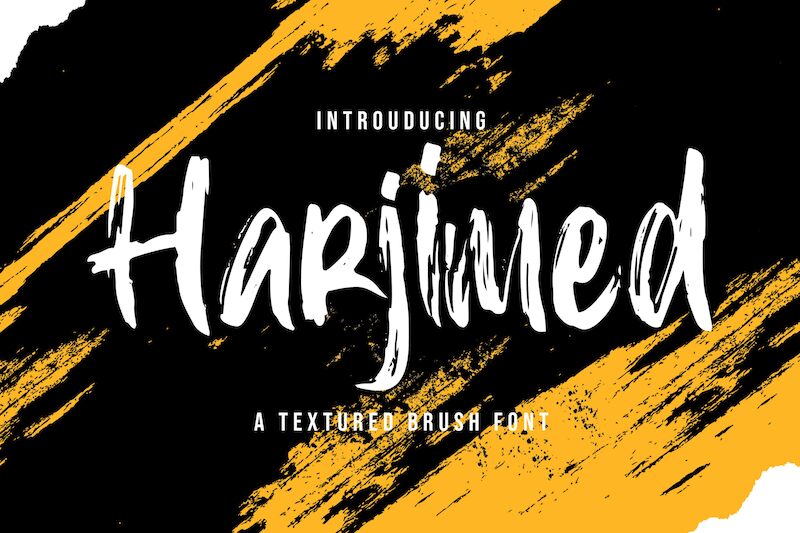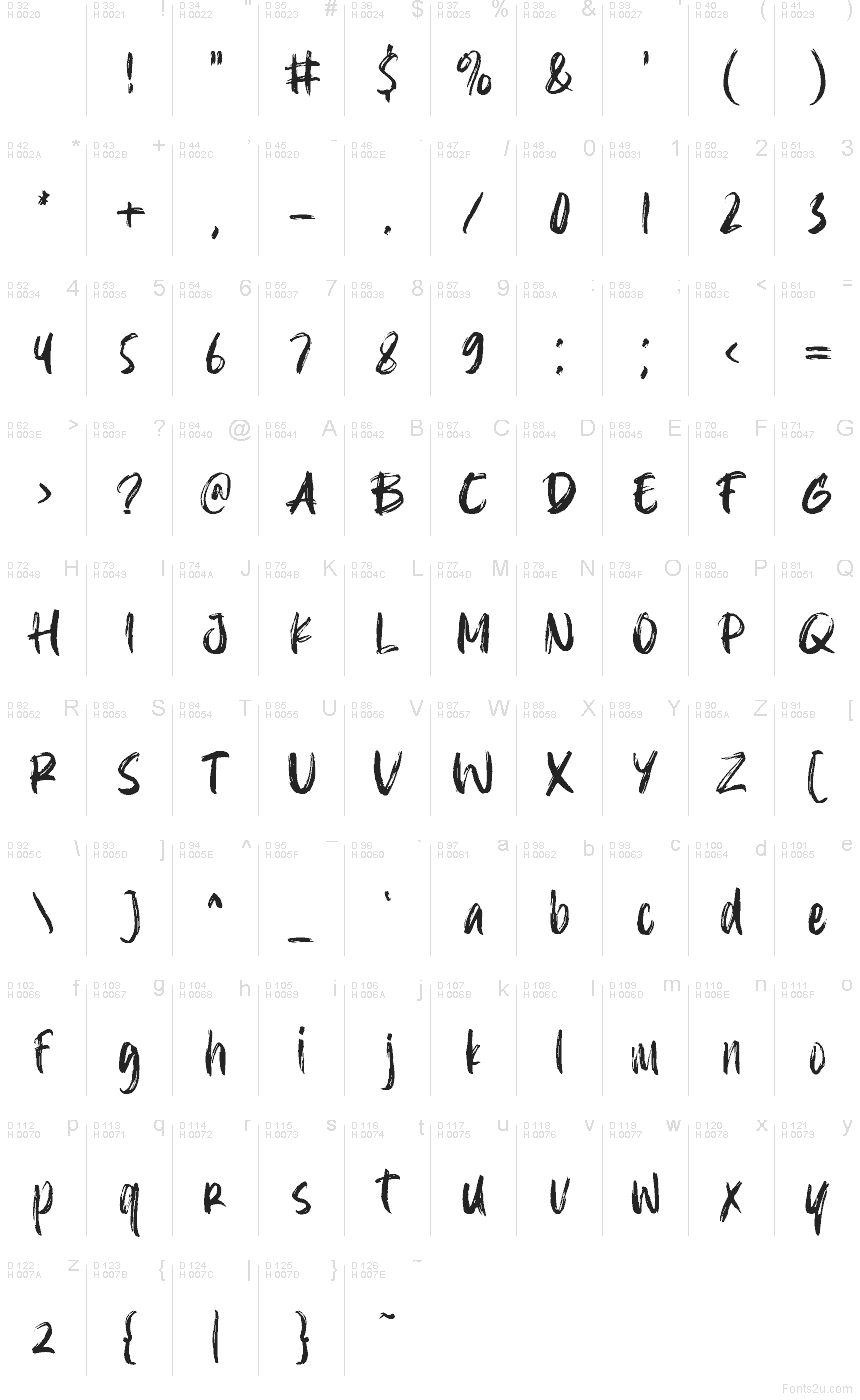
Harjimed Regular
Harjimed, by Harjimed, is a free dry-brush script with a loose handmade rhythm and a slightly rough, inked edge. The letters feel quick and human rather than polished, with tall strokes, uneven pressure, and a casual sweep that gives the font a lively sign-painted flavor.
It fits naturally in poster headlines, music artwork, cafe branding, packaging, and social media title cards where a free font with real brush energy feels less staged than a clean script. Because the strokes break and thicken unpredictably, it also works well for short quotes, cover lines, and logo-style wordmarks that need motion without turning ornate.